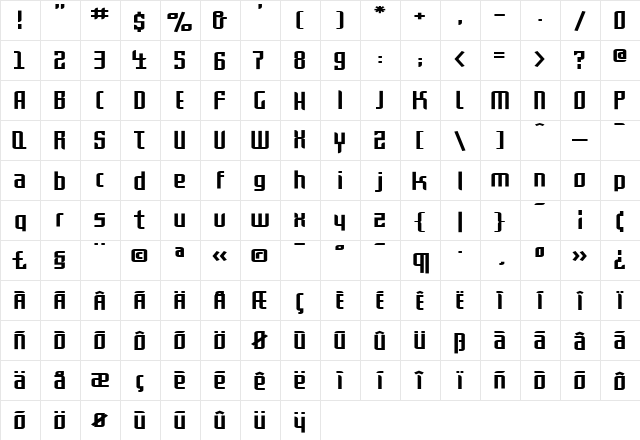
Rosetta Bold Bold
Design Context for Rosetta Bold Typeface
Rosetta Bold offers clean, dependable letterforms without strong stylistic allegiance, making it a practical choice for designers who need flexibility. The heavy weight commands attention and anchors typographic hierarchies.